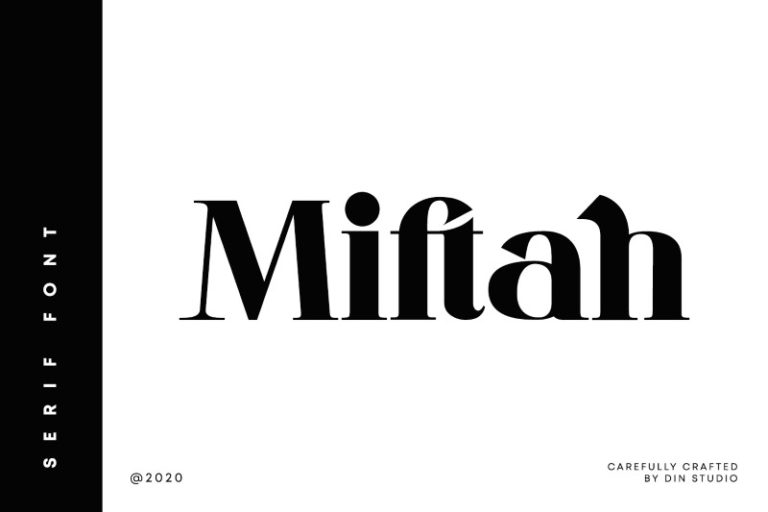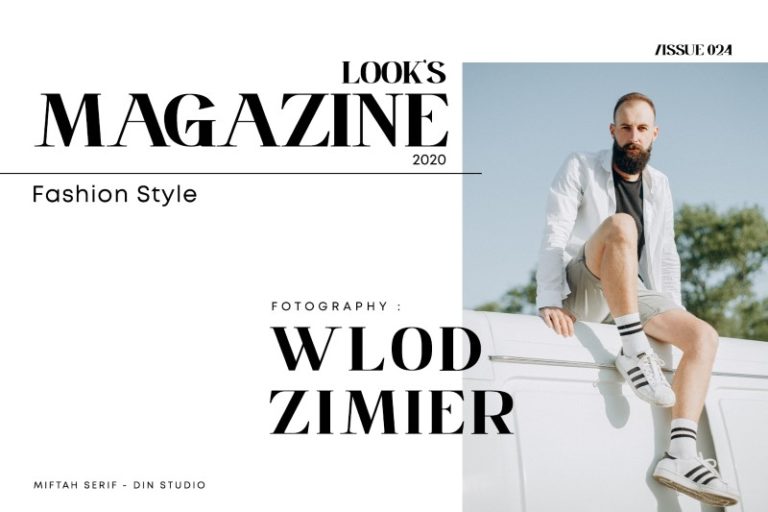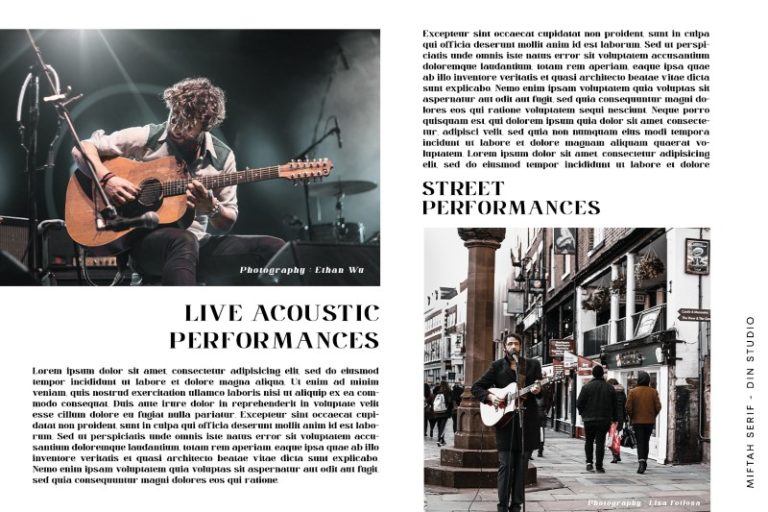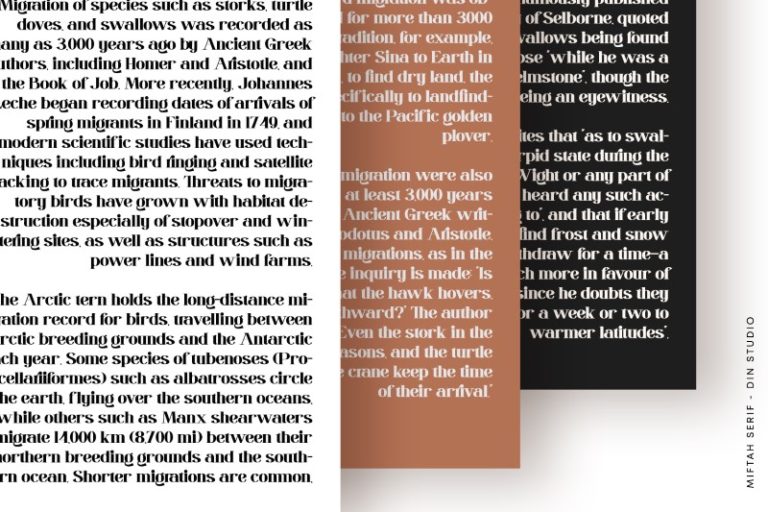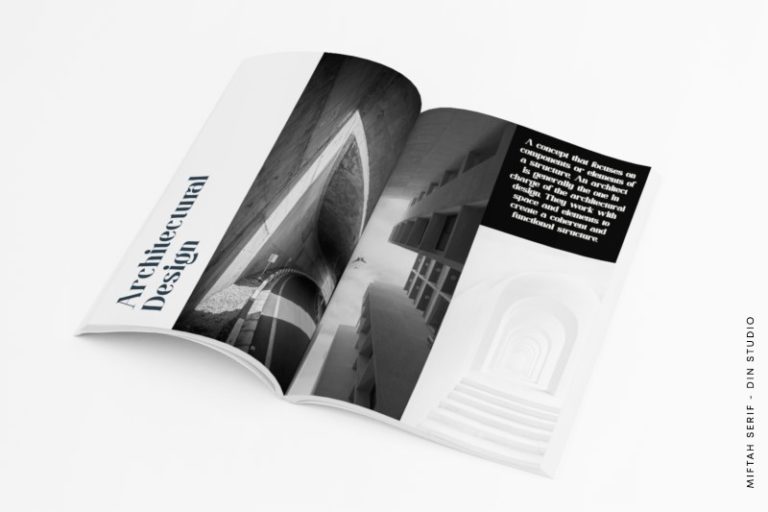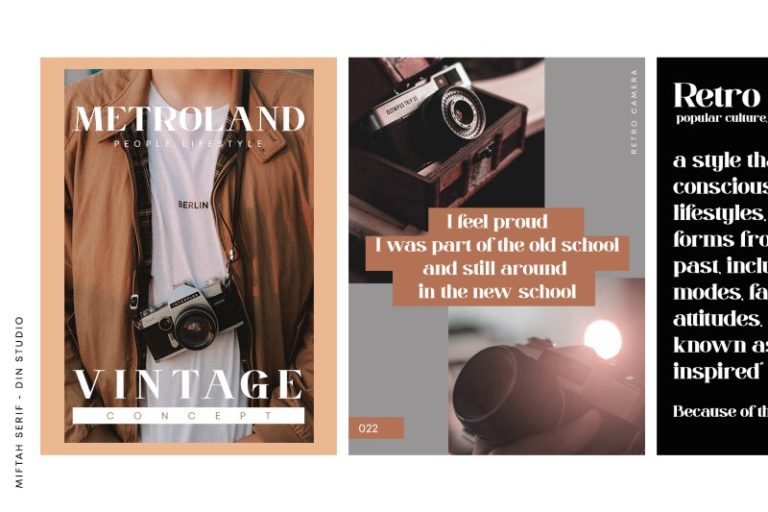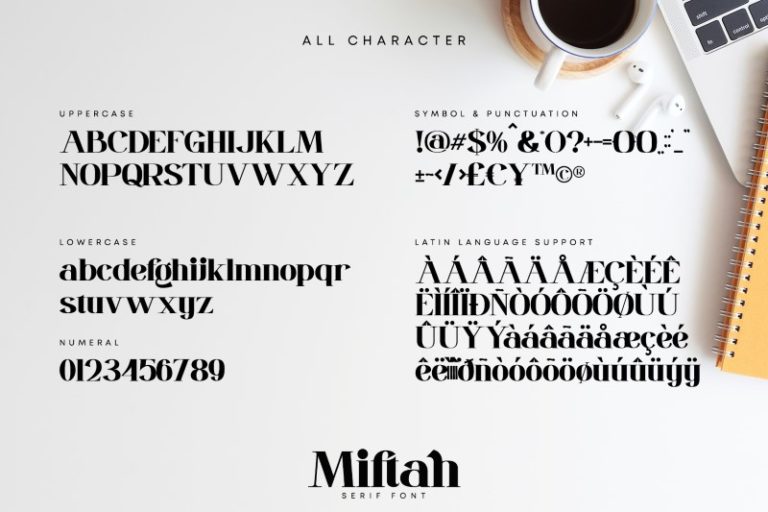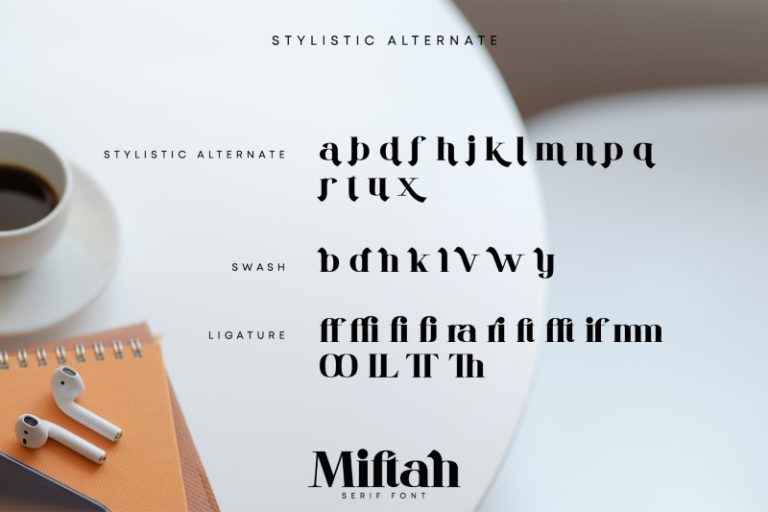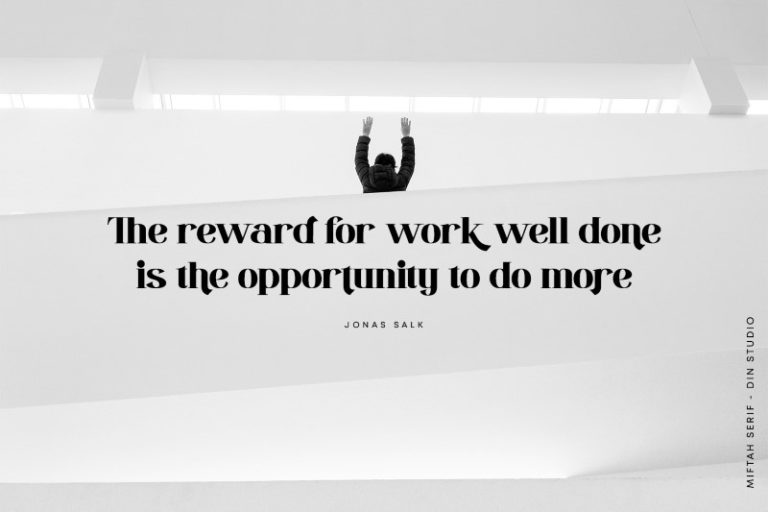
Miftah is a modern serif font made for any professional project brandings which is best used for logos, brandings, and quotes. Every letter has a unique and beautiful touch. See the previews above to get some inspiration on how you can use them. Happy Designing!
Features include:
- Beautiful Ligatures
- Stylish Sets
- Swashes